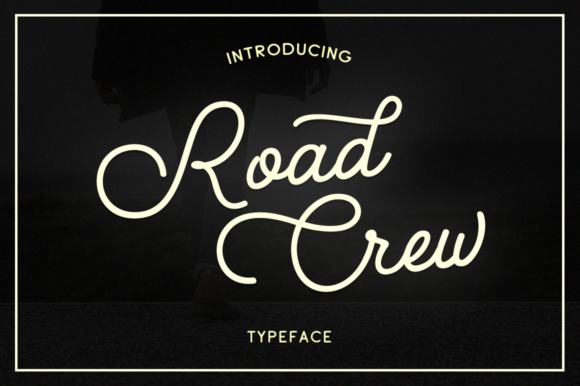
Step onto a creative adventure with Road Crew Font, where free-spirited letters dance with a mischievous charm. Inspired by the energy of a road trip, this script font brings a breath of fresh air to your designs. Road Crew is the ultimate companion for your unique projects, ready to add a touch of whimsy and fun. Unlock your creativity with this spirited font.
With its energetic brushstrokes and lively flow, Road Crew is more than just a font; it's a statement of style. Bring your ideas to life with captivating posters, eye-catching social media graphics, or heartfelt invitations. The possibilities are limitless with Road Crew. Let your imagination run wild as you create designs that speak to your heart.
Road Crew's versatility knows no bounds. Its casual elegance adds a personal touch to wedding invitations, bringing a sense of warmth and joy to your special day. Craft enchanting logos that leave a lasting impression, expressing the essence of your brand with a wink of playfulness. The playful nature of Road Crew makes it perfect for children's books and playful branding, bringing a smile to the faces of young and old alike.
Join the creative journey with Road Crew Font. Let its infectious energy take your designs to new heights. Download Road Crew today and embark on an adventure of self-expression. With Road Crew, every project becomes a joyous journey, filled with creativity and wonder.